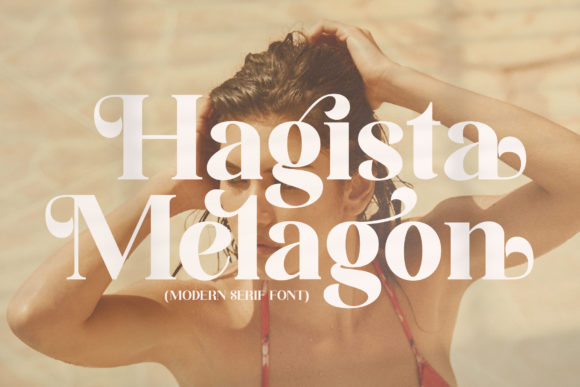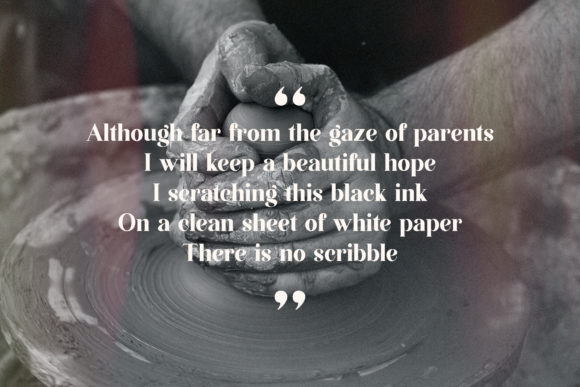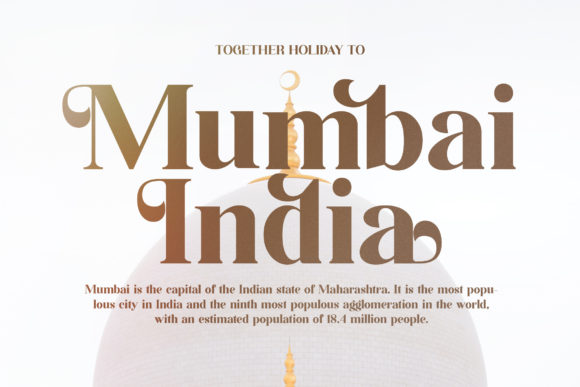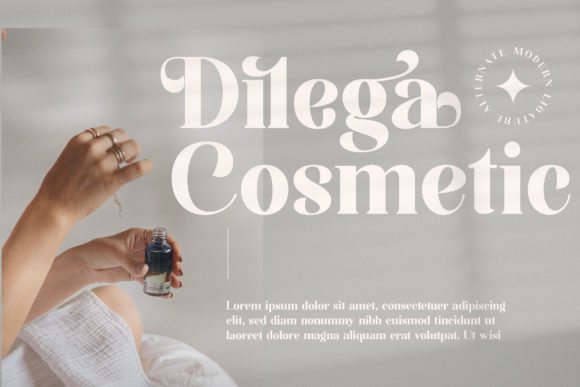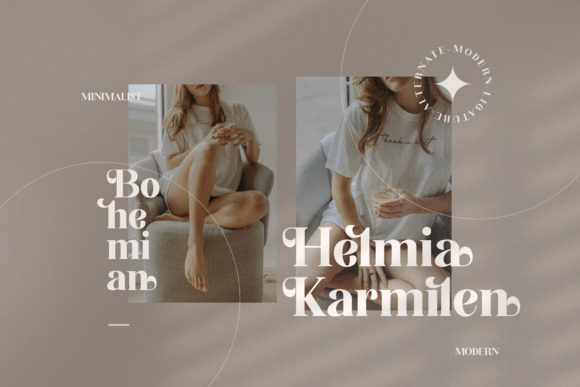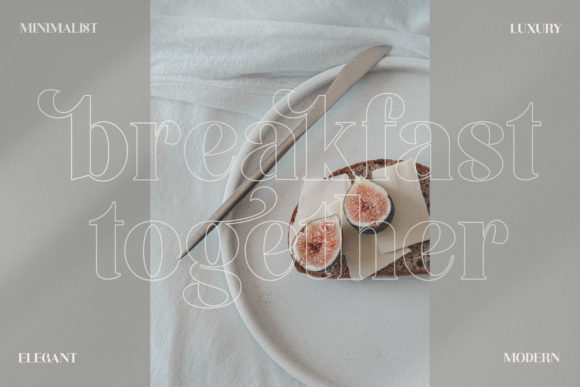
Hagista Melagon Font: Elevate Your Designs with Elegance and Sophistication
In the world of typography, a font can make or break a design. For designers and crafters seeking to add a touch of luxury and elegance to their projects, Hagista Melagon is a game-changer. This modern and classic serif font boasts a unique style that seamlessly blends traditional and contemporary elements, making it perfect for a wide range of applications.
What Makes Hagista Melagon Stand Out?
Hagista Melagon is more than just a font – it’s an experience. Its distinctive serif design and modern aesthetic make it an excellent choice for projects that demand sophistication and refinement. Whether you’re working on a luxury logo, book or movie title, fashion brand, magazine, or clothing line, this font is sure to elevate your design to new heights.
One of the standout features of Hagista Melagon is its versatility. This font can be used for a variety of purposes, including:
- Elegant logos and branding
- Book and movie titles
- Fashion brand designs
- Magazine and newspaper layouts
- Clothing and apparel designs
- Lettering and quotes
Why Designers and Crafters Love Hagista Melagon
Designers and crafters love Hagista Melagon for its unique blend of classic and modern elements. This font is perfect for those who want to add a touch of sophistication and elegance to their designs without sacrificing creativity and flexibility.
Some of the key benefits of using Hagista Melagon include:
- High-quality, crisp, and clear designs
- Easily readable and legible text
- Perfect for both digital and print designs
- Wide range of uses and applications
Tips for Using Hagista Melagon
To get the most out of Hagista Melagon, here are some tips and tricks:
- Use it for headlines and titles to add a touch of luxury and sophistication
- Experiment with different font sizes and colors to create visual interest
- Pair it with other fonts to create a unique and eye-catching design
- Use it for body text to add a touch of elegance and refinement
Hagista Melagon is a game-changing font that offers designers and crafters a unique and elegant solution for their design needs. With its modern and classic serif design, PUA encoding, and wide range of uses and applications, this font is perfect for anyone looking to elevate their designs and add a touch of sophistication and luxury.